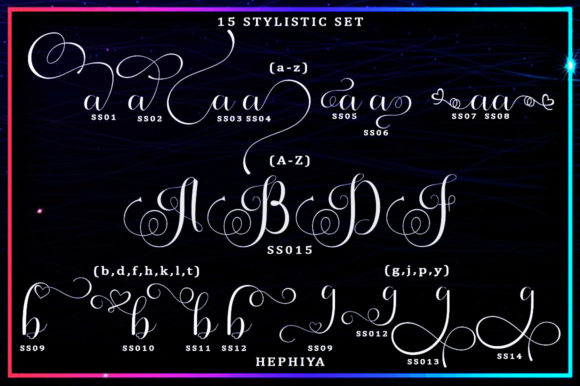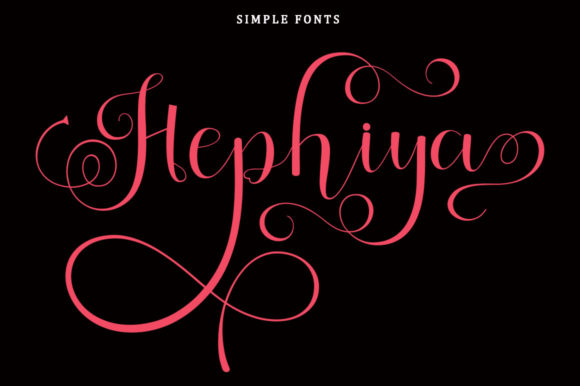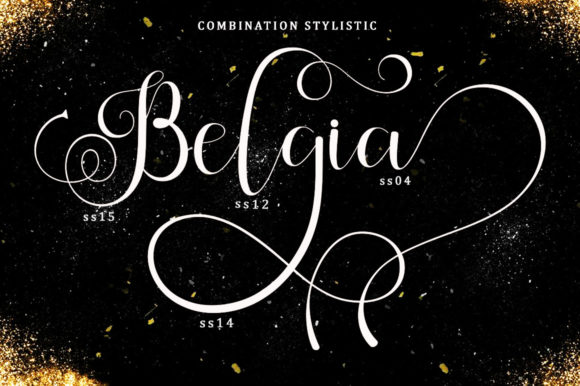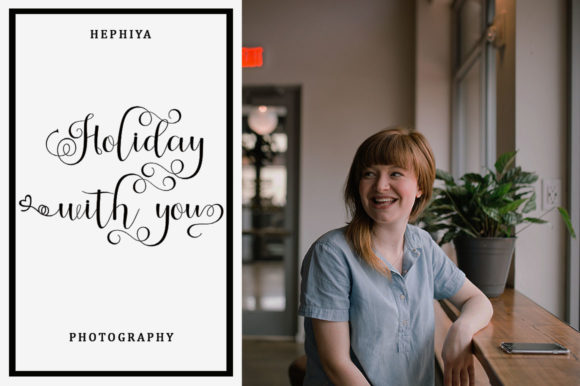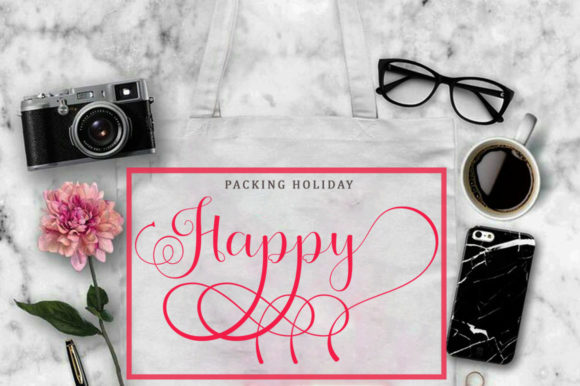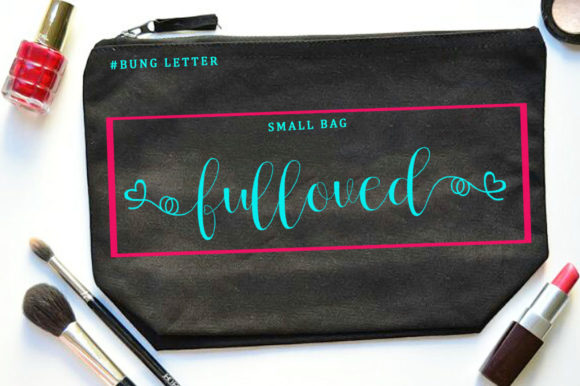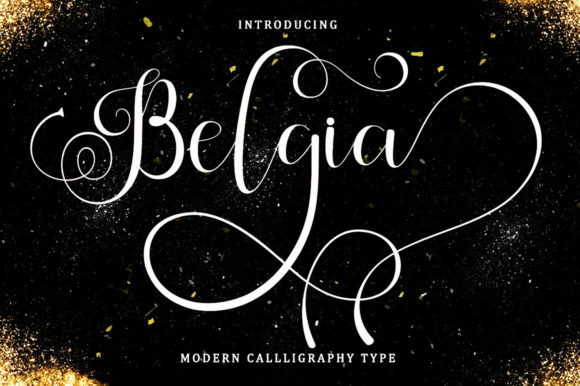
Introducing Belgia Font: The Perfect Blend of Playfulness, Romance, and Elegance
In the world of typography, fonts play a crucial role in conveying the tone and personality of a brand or design. For designers and crafters looking for a script font that exudes playfulness, romance, and elegance, Belgia Font is an excellent choice. This versatile font is perfect for a wide range of applications, from headlines to personal branding, and is guaranteed to add a handmade touch to your next design.
The Characteristics of Belgia Font
Belgia Font is a script font that boasts a unique blend of playfulness, romance, and sophistication. Its elegant strokes and flourishes make it perfect for designs that require a touch of luxury and refinement. The font’s playful and romantic undertones also make it ideal for designs that need to convey a sense of whimsy and charm.
What Makes Belgia Font So Versatile?
One of the standout features of Belgia Font is its versatility. This font can be used for a wide range of applications, including:
- Headlines: Belgia Font’s bold and elegant strokes make it perfect for headlines that need to grab attention.
- Personal Branding: The font’s playful and romantic undertones make it ideal for personal branding projects that require a touch of personality.
- Signage: Belgia Font’s clear and legible design makes it perfect for signage projects, such as menus, posters, and flyers.
- Packaging: The font’s elegant and sophisticated design makes it ideal for packaging projects that require a touch of luxury.
The Benefits of Using Belgia Font
So, why should designers and crafters choose Belgia Font for their next project? Here are just a few benefits of using this versatile script font:
- Unique and Eye-Catching: Belgia Font’s unique blend of playfulness, romance, and elegance makes it a standout choice for designers looking to create eye-catching designs.
- Handmade Touch: The font’s elegant strokes and flourishes give designs a handmade touch that is sure to impress.
- Easy to Read: Belgia Font’s clear and legible design makes it easy to read, even at small sizes.
- Flexible: The font’s versatility makes it perfect for a wide range of applications, from headlines to personal branding.
Tips for Using Belgia Font Effectively
To get the most out of Belgia Font, here are a few tips for using it effectively:
- Use it Sparingly: Belgia Font’s elegant and sophisticated design makes it perfect for use in moderation. Use it sparingly to add a touch of luxury to your designs.
- Experiment with Colors: The font’s clear and legible design makes it perfect for use with a wide range of colors. Experiment with different colors to find the perfect combination for your design.
- Pair it with Other Fonts: Belgia Font’s versatility makes it perfect for pairing with other fonts. Experiment with different font combinations to find the perfect pairing for your design.
In conclusion, Belgia Font is a versatile script font that is perfect for designers and crafters looking for a playful, romantic, and elegant font for their next project. Its unique blend of characteristics, versatility, and benefits make it an excellent choice for a wide range of applications. Whether you’re looking to create eye-catching headlines, personal branding projects, or packaging designs, Belgia Font is guaranteed to add a handmade touch to your next design.